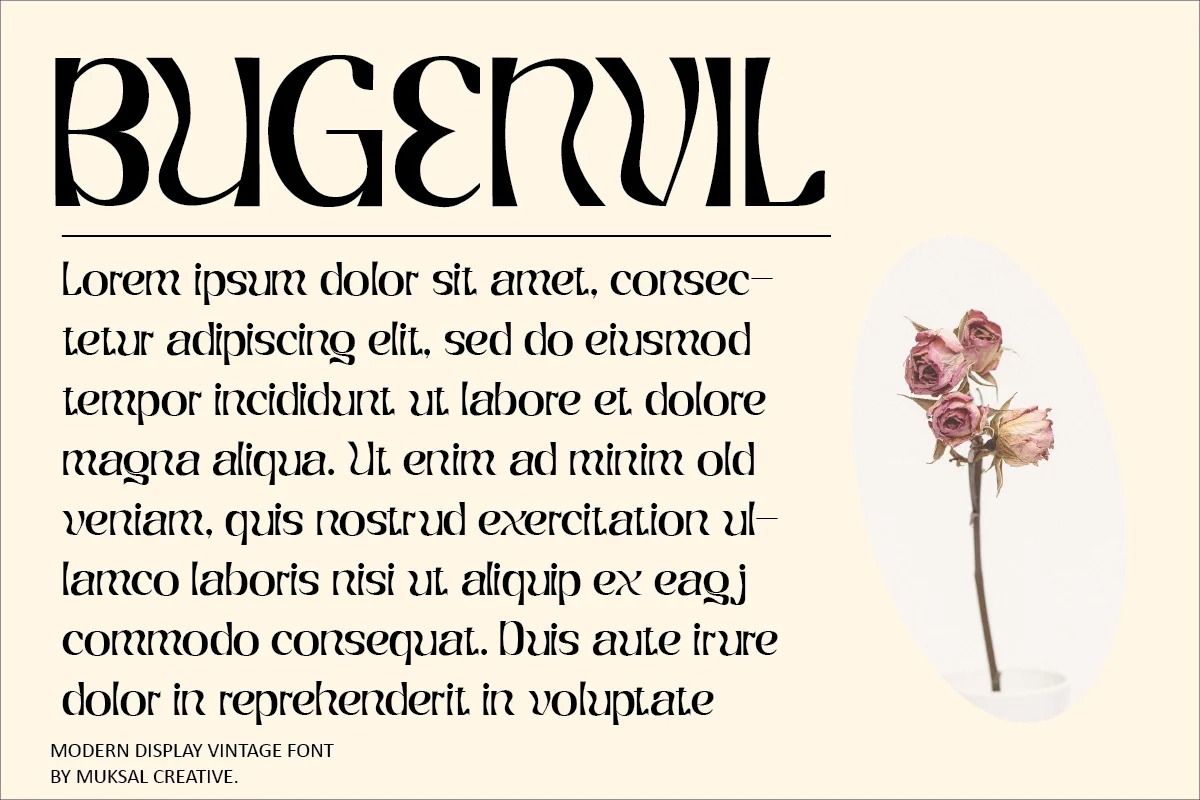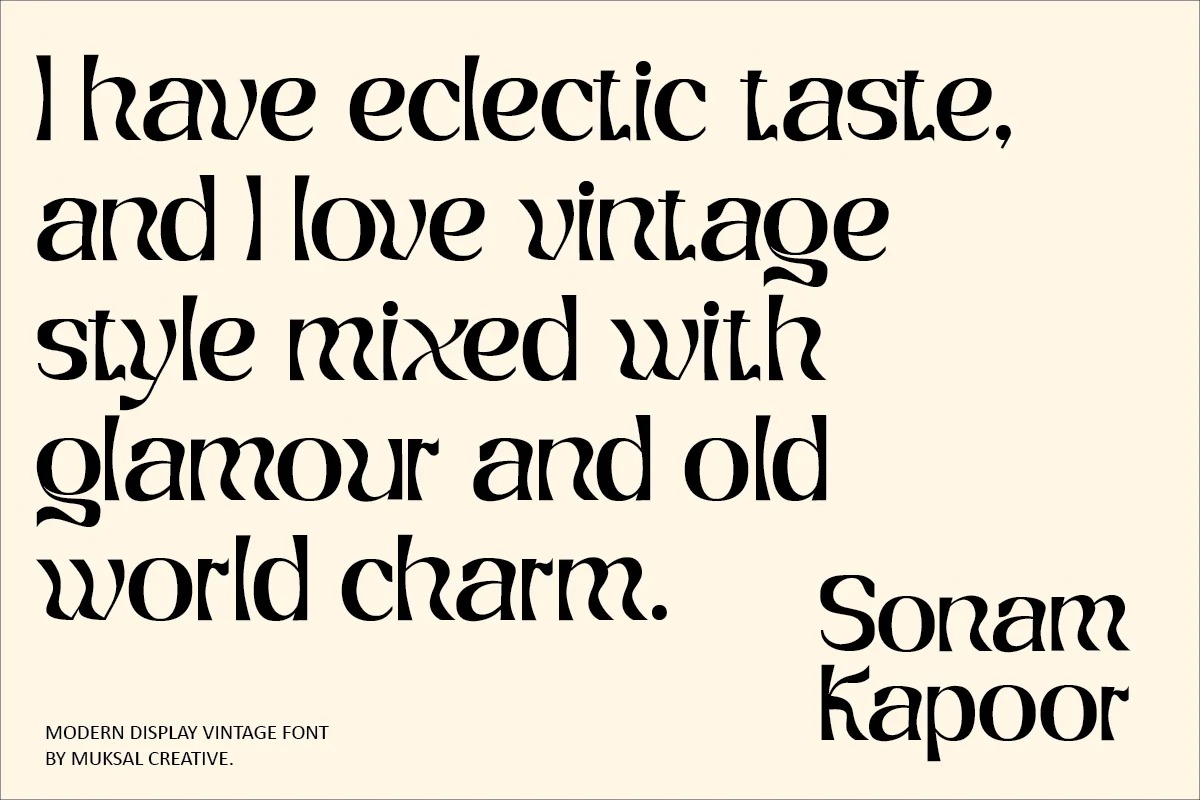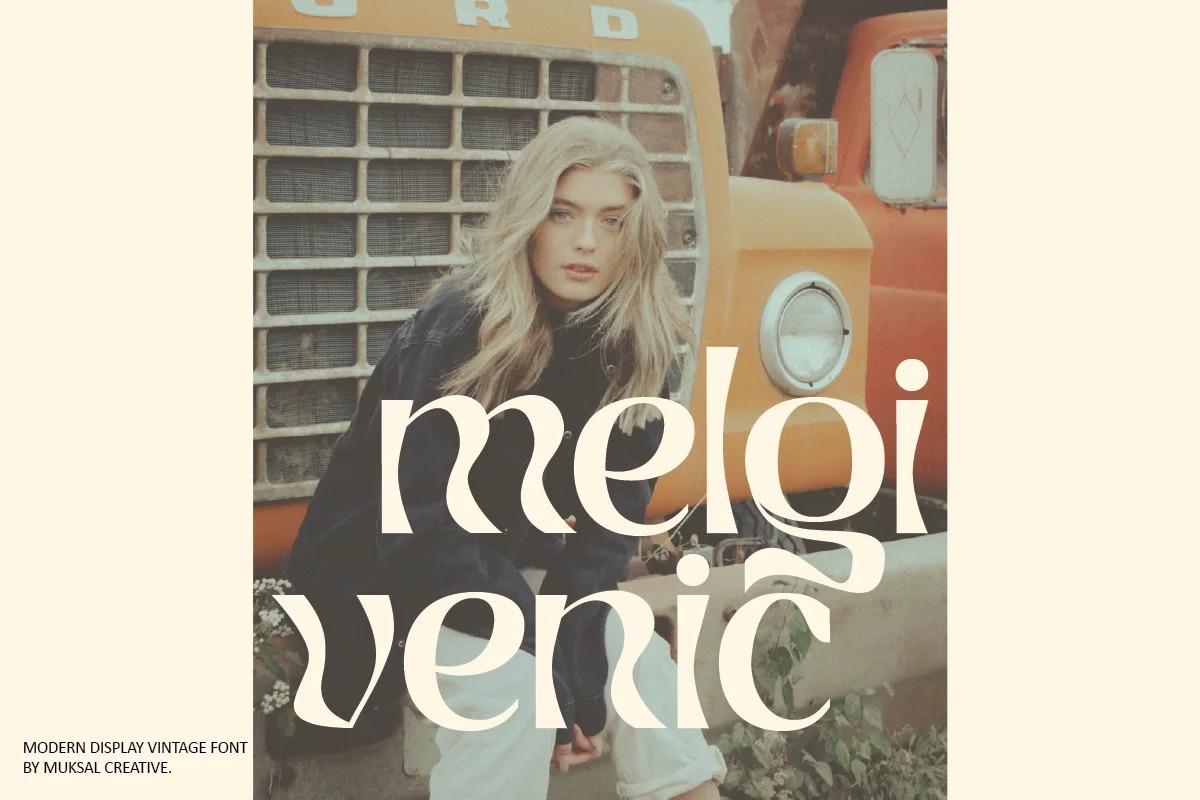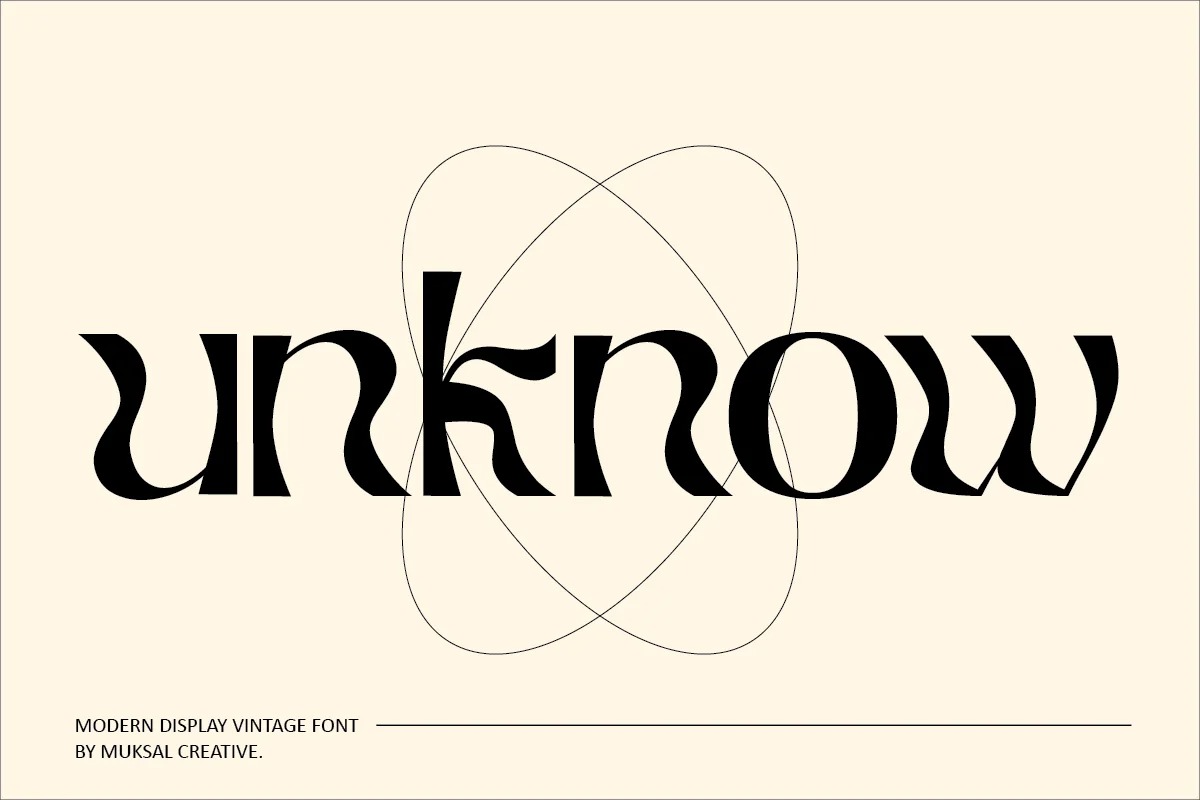
Unknow Font
Unknow Display Font
This font is an elegant display sans serif with a bit of eccentric twist that makes it far from your typical classic serif. It’s a very versatile font that works great in large and small sizes. Perfect for editorial projects, Logo design, Clothing Branding, product packaging, magazine headers, or simply as a stylish text overlay to any background image.